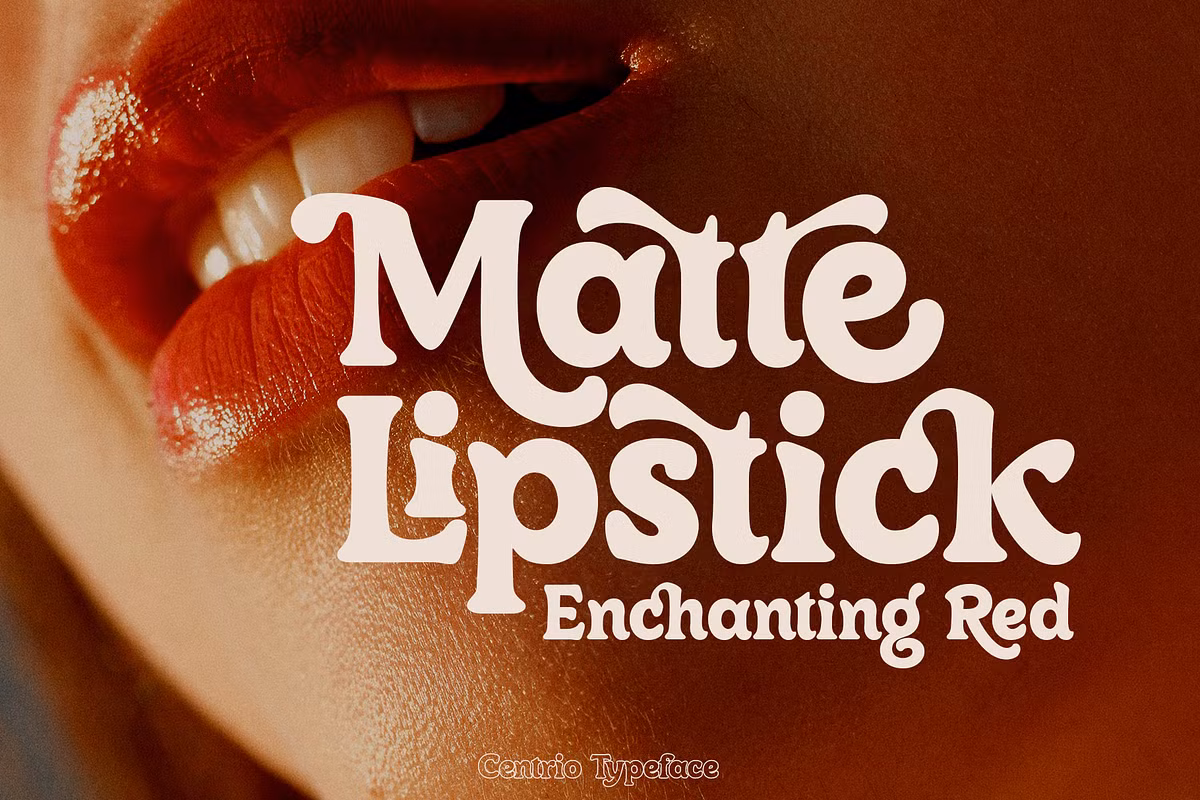
Do you need a typeface that mixes retro look, with look? The Centrio Typeface can fit your projects. The Centrio Typeface offers styles that help your designs stand out. In this article you will see the features, uses and benefits of the Centrio Typeface. You will also get tips on how to add the Centrio Typeface to your work. I have used the Centrio Typeface. I see how it works in projects.
What is Centrio Typeface?
Centrio Typeface mixes the look of letters with a bit of old style. Centrio Typeface has a mix of ligatures and swirly details that makes Centrio Typeface stand out for design jobs. I have used Centrio Typeface in my projects. Centrio Typeface feels right. If you are creating a logo, a poster or an invitation Centrio Typeface adds a bit of class and style to the result.
Key Features of Centrio Typeface
- Versatile Styles: Centrio offers the styles you need. Centrio includes Centrio Script, Centrio Extrude and Centrio Outline. Centrio gives you the option to match any design need.
- Elegant Ligatures: The font has ligatures. Elegant Ligatures improve the look. Let the letters join smoothly. When I use Elegant Ligatures I see the text flow.
- Modern Yet Vintage: I see that Centrio’s design shows the feel of style letters and also feels new. Centrio’s design works well for projects.
Applications of Centrio Typeface
The Centrio Typeface can be used in ways. I have used the Centrio Typeface in projects because the Centrio Typeface works well in different styles. Below are some applications of the Centrio Typeface:
- Magazine Titles: I use headlines. The headlines match the theme of your publication.
- Posters: I design posters that look nice. Posters let you get the message across with style.
- Logos: I design logos that people remember. I want the logo to stay in the mind.
- T-Shirts: Add a feel to the apparel designs. T-Shirts make the designs look modern.
- Business Cards: When I use Business Cards I stand out at networking events. Business Cards, with a style catch the eye.
- Wedding Invitations: Set the tone for your special day with elegant invites.
- Social Media Templates: Let you raise your Instagram stories and posts. Social Media Templates help you engage the audience.